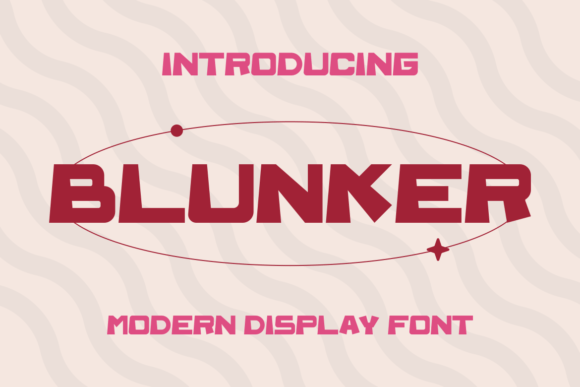
The Blunker Font: A Modern Display Font to Elevate Your Designs
An Honest Review of Blunker Font
As a designer, I’m always on the lookout for fonts that can bring a unique touch to my projects. Here’s what I love about Blunker:
- ✨ Distinct and well-balanced letters that make it stand out
- ✅ Incredibly versatile style that works for various design projects
- 💥 Modern and cool display font that’s perfect for headlines and titles
While Blunker is an amazing font, it’s not perfect. Here are some small quirks to keep in mind:
- 🤔 Limited use for body text due to its display font nature
- ⚠️ May not work well for very small font sizes
The Story Behind Blunker Font
Blunker was designed by a team of typographers who aimed to create a modern display font that would capture the essence of contemporary design. Inspired by urban landscapes and modern architecture, Blunker is a reflection of the clean lines, geometric shapes, and bold statements that define modern style.
| Font Name | Blunker Font |
| Author | Marvadesign |
| What is Blunker font best used for? | Blunker is ideal for display purposes, such as headlines, titles, and short text elements. |
| Can I use Blunker for body text? | While possible, Blunker is not optimized for body text due to its display font nature. It’s best used for short text elements. |